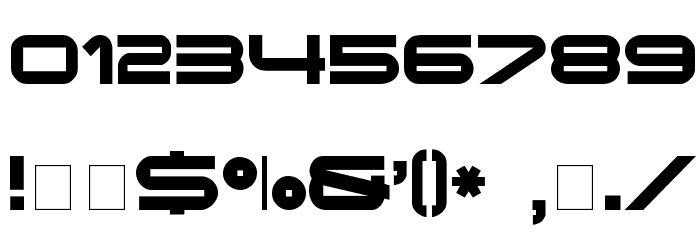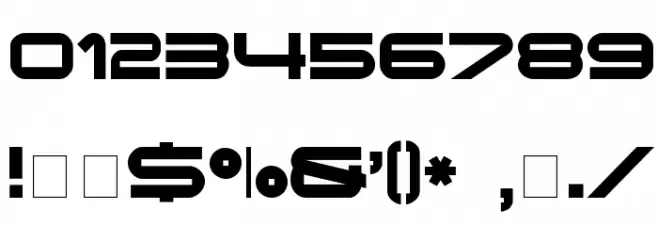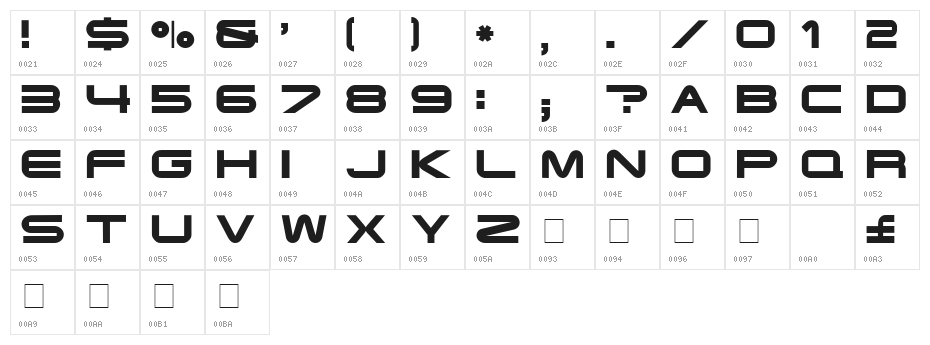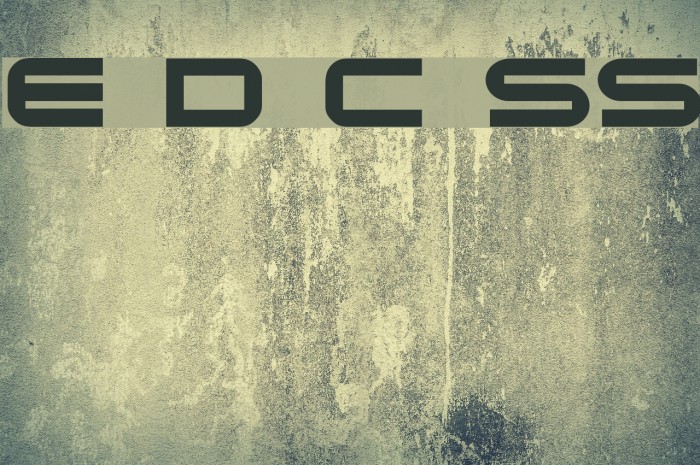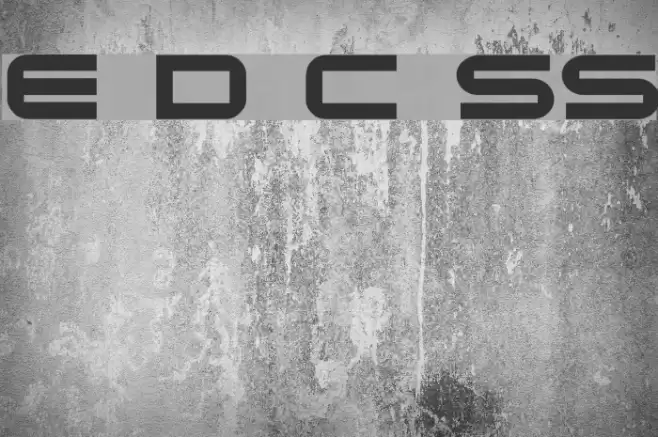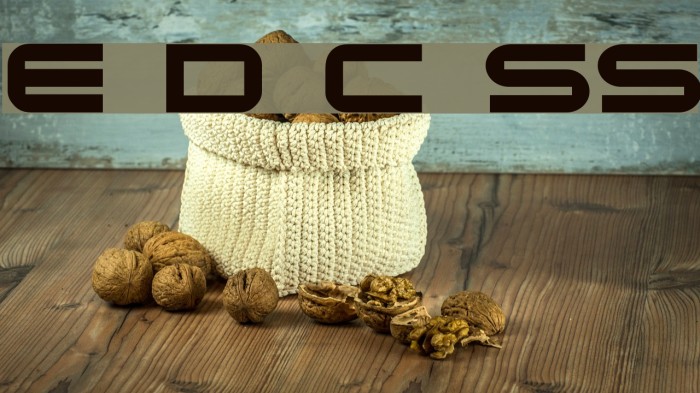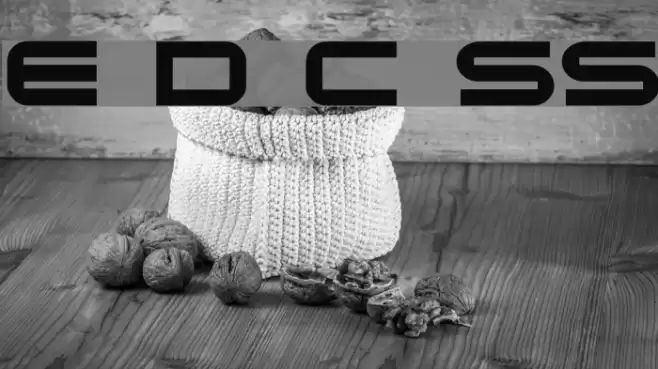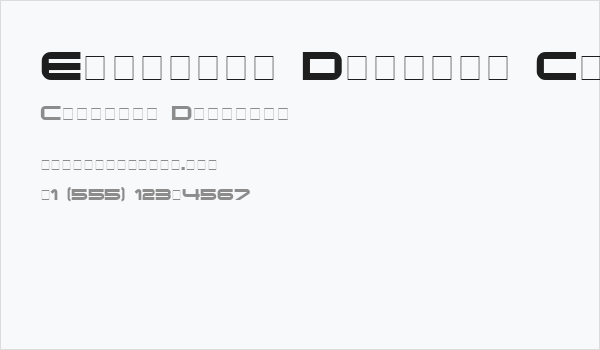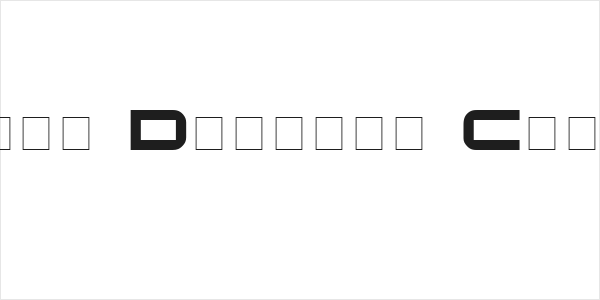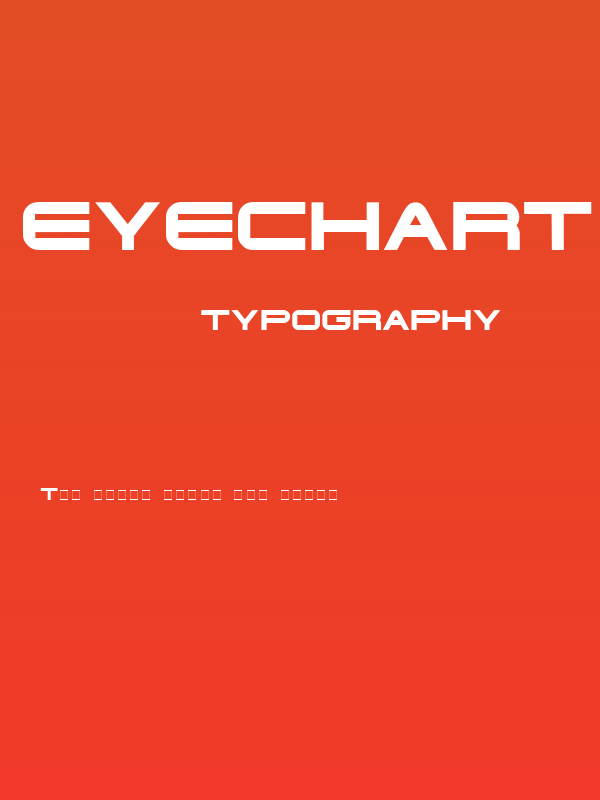
Eyechart Display Caps SSi Font
Eyechart Display Caps SSi Description
This font features a bold and modern design with a strong geometric influence. The uppercase letters are characterized by their wide, block-like appearance, with sharp angles and a consistent stroke width that gives it a robust and impactful look. The numerals follow the same design principles, ensuring a cohesive appearance across all characters. The special characters are designed to match the boldness and geometric style of the letters and numbers, making them suitable for a variety of design applications. Overall, this font exudes a contemporary and assertive aesthetic, ideal for making a statement.
| Proposed Projects | Ideal for headlines, posters, branding, and any design that requires a strong visual impact. |